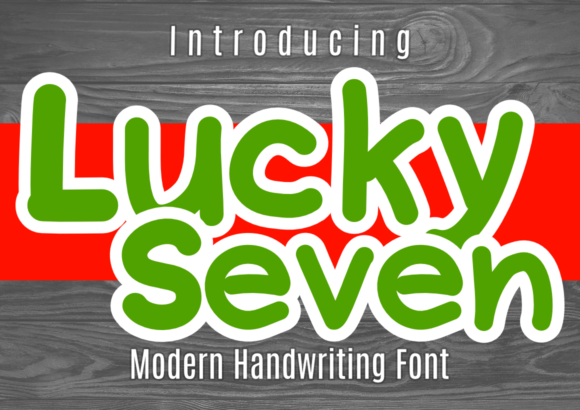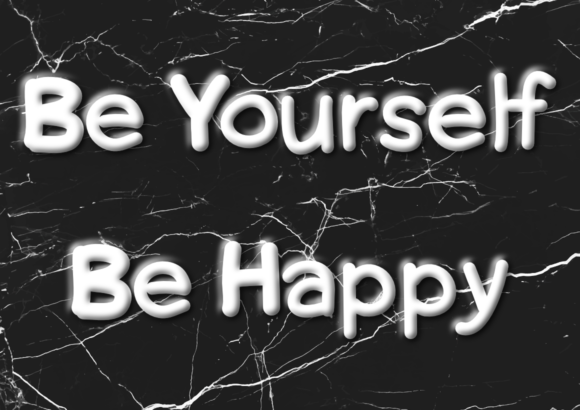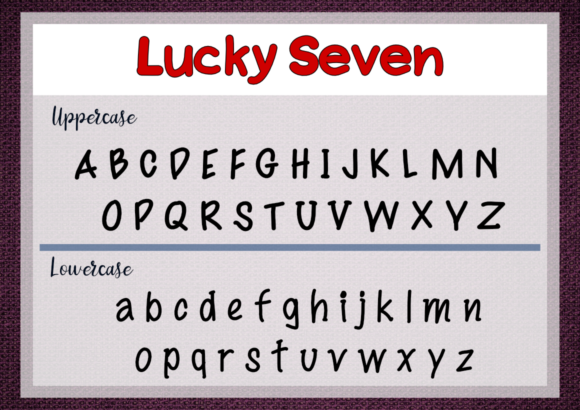
About Lucky Seven Font
Lucky Seven is a cute and bold handwritten font with an incredibly friendly feel. It will elevate a wide range of design projects to the highest level, be it branding, headings, wedding designs, invitations, signatures, logos, labels, and much more!